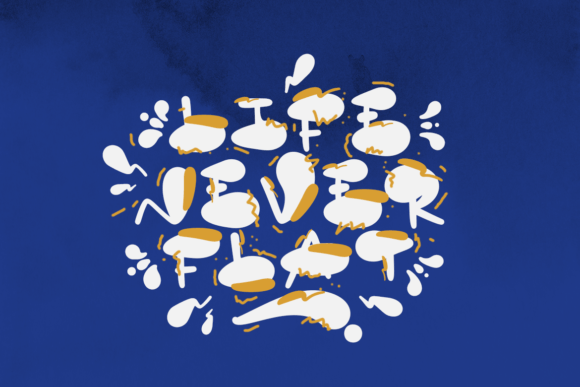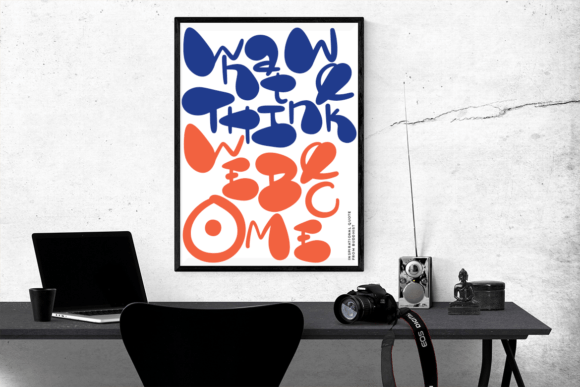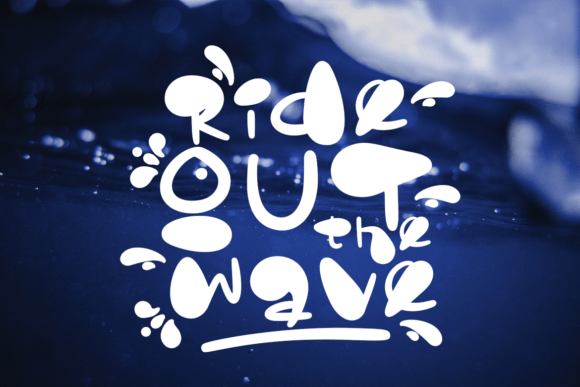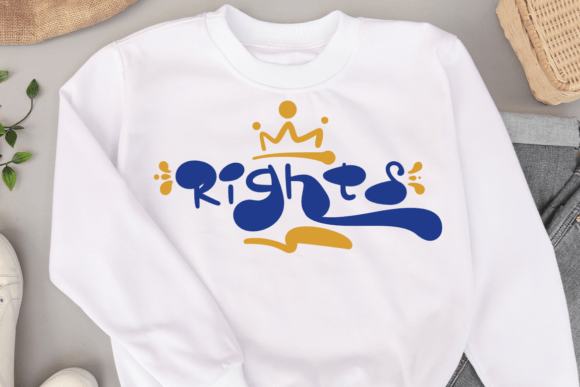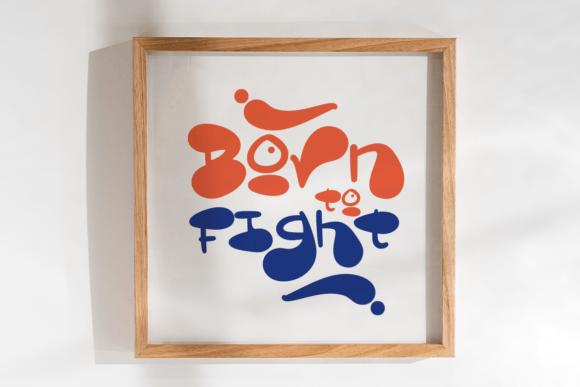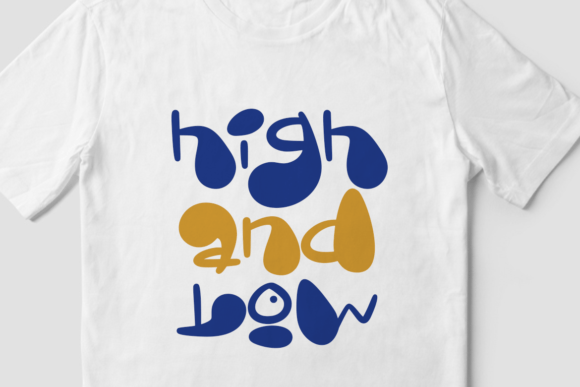
Introducing Dropa Migos: The Ultimate Display Font for Retro-Inspired Designs
Are you a designer or crafter looking for a font that can add a touch of retro charm to your creative projects? Look no further than Dropa Migos, a stylish and playful display font that’s perfect for making a statement. In this article, we’ll take a closer look at the features and benefits of Dropa Migos, and explore how you can use it to take your designs to the next level.
What is Dropa Migos?
Dropa Migos is a display font that’s been masterfully designed to bring a touch of retro flair to any design idea. With its unique blend of playful and stylish elements, this font is sure to become a true favorite among designers and crafters. Whether you’re working on a logo, a poster, or a social media graphic, Dropa Migos has the potential to bring each of your creative ideas to the highest level.
Key Features of Dropa Migos
So what sets Dropa Migos apart from other display fonts on the market? Here are just a few of its key features:
- Retro-inspired design: Dropa Migos has a distinctly retro feel that’s perfect for designers who want to add a touch of nostalgia to their work.
- Playful and stylish: This font is both playful and stylish, making it perfect for a wide range of design applications.
- High-quality design: Dropa Migos has been carefully crafted to ensure that it looks great in any design, from logos and posters to social media graphics and more.
- Easy to use: Whether you’re a seasoned designer or just starting out, Dropa Migos is easy to use and can be incorporated into your designs in no time.
How to Use Dropa Migos in Your Designs
So now that you know a little bit more about Dropa Migos, let’s take a look at how you can use it in your designs. Here are a few ideas to get you started:
- Logos and branding: Use Dropa Migos to create a unique and memorable logo that will help your brand stand out.
- Posters and flyers: Add a touch of retro charm to your posters and flyers with Dropa Migos.
- Social media graphics: Use Dropa Migos to create eye-catching social media graphics that will help your brand stand out.
- Packaging and labels: Add a touch of personality to your packaging and labels with Dropa Migos.
Tips for Getting the Most Out of Dropa Migos
Here are a few tips for getting the most out of Dropa Migos:
- Experiment with different colors: Dropa Migos looks great in a wide range of colors, so don’t be afraid to experiment and find the perfect combination for your design.
- Play with font sizes: Dropa Migos is a display font, so it’s perfect for use in large sizes. Experiment with different font sizes to create visual interest and hierarchy in your design.
- Combine with other fonts: Dropa Migos pairs well with a wide range of other fonts, so don’t be afraid to combine it with other fonts to create a unique and interesting design.
Dropa Migos is a stylish and playful display font that’s perfect for designers and crafters who want to add a touch of retro charm to their creative projects. With its unique blend of playful and stylish elements, this font is sure to become a true favorite. Whether you’re working on a logo, a poster, or a social media graphic, Dropa Migos has the potential to bring each of your creative ideas to the highest level. So why wait? Download Dropa Migos today and start creating!